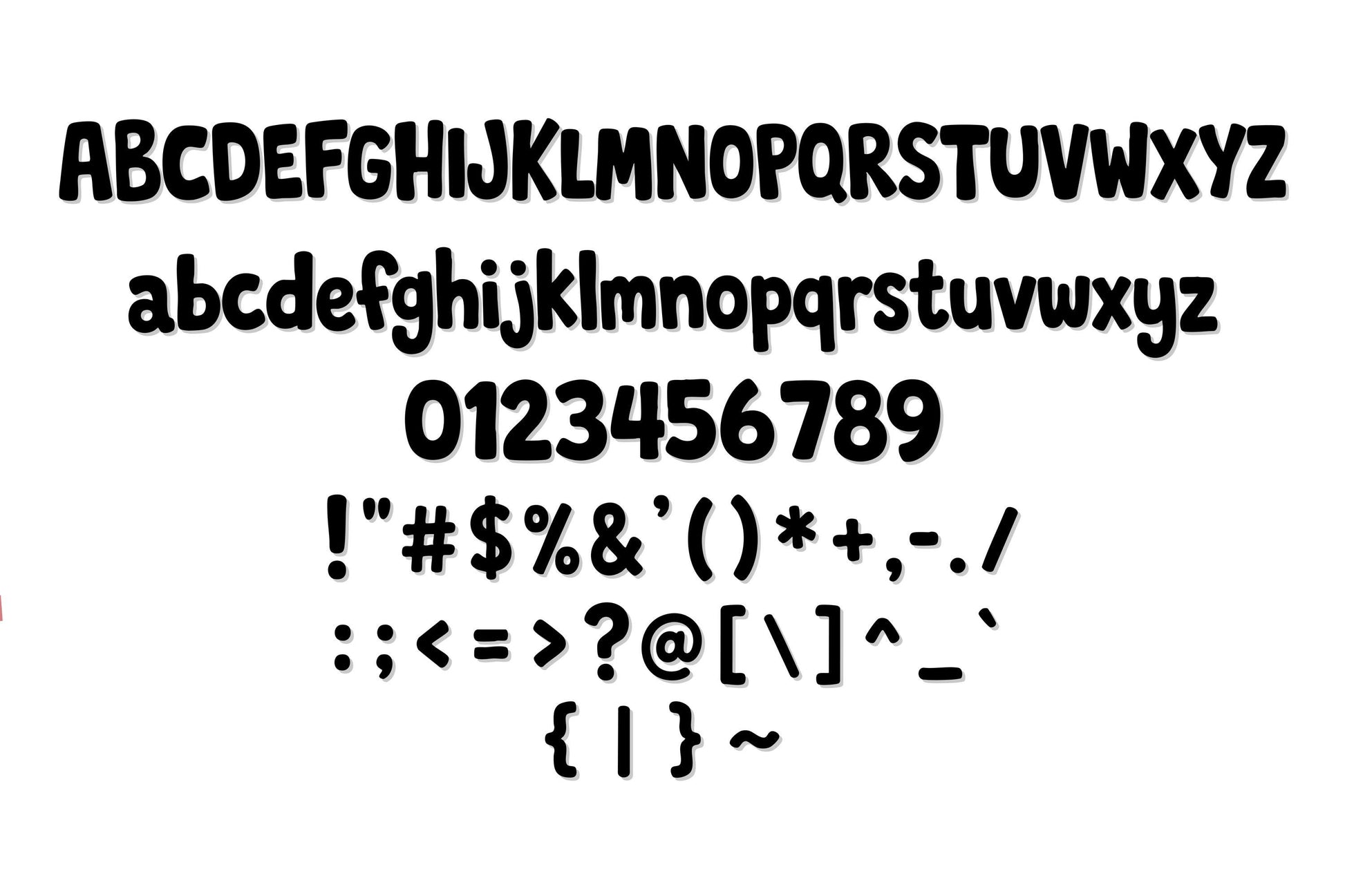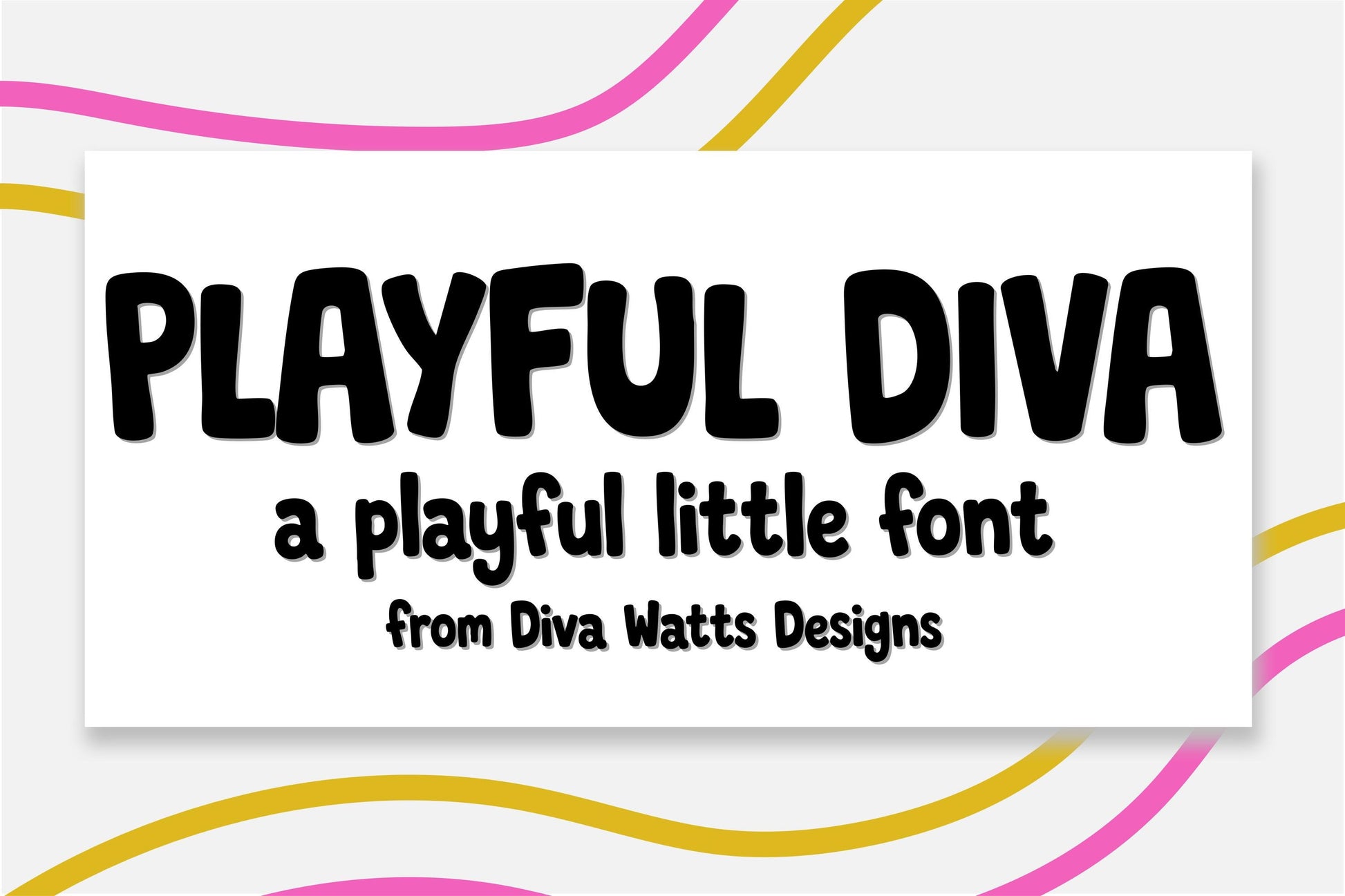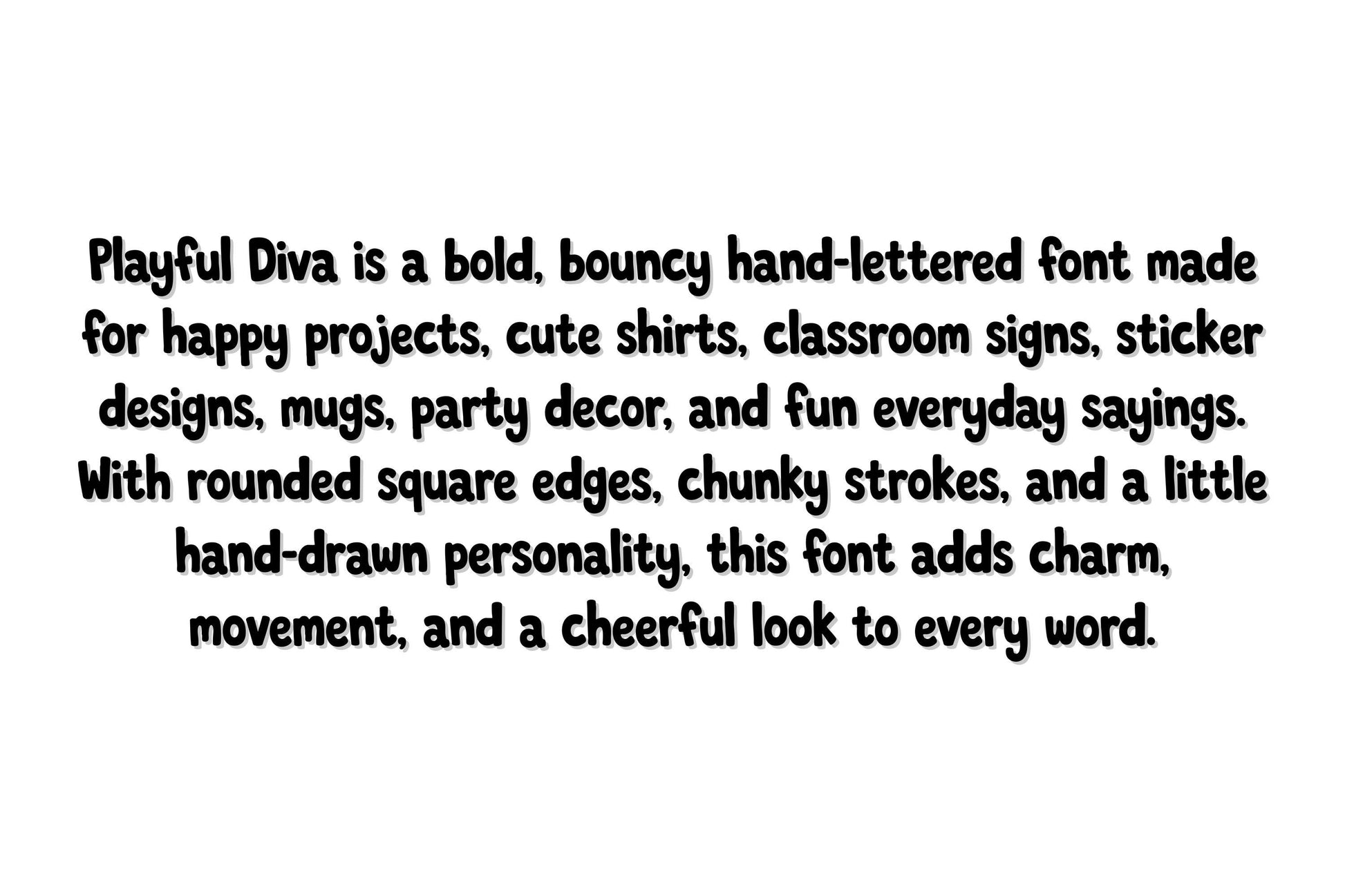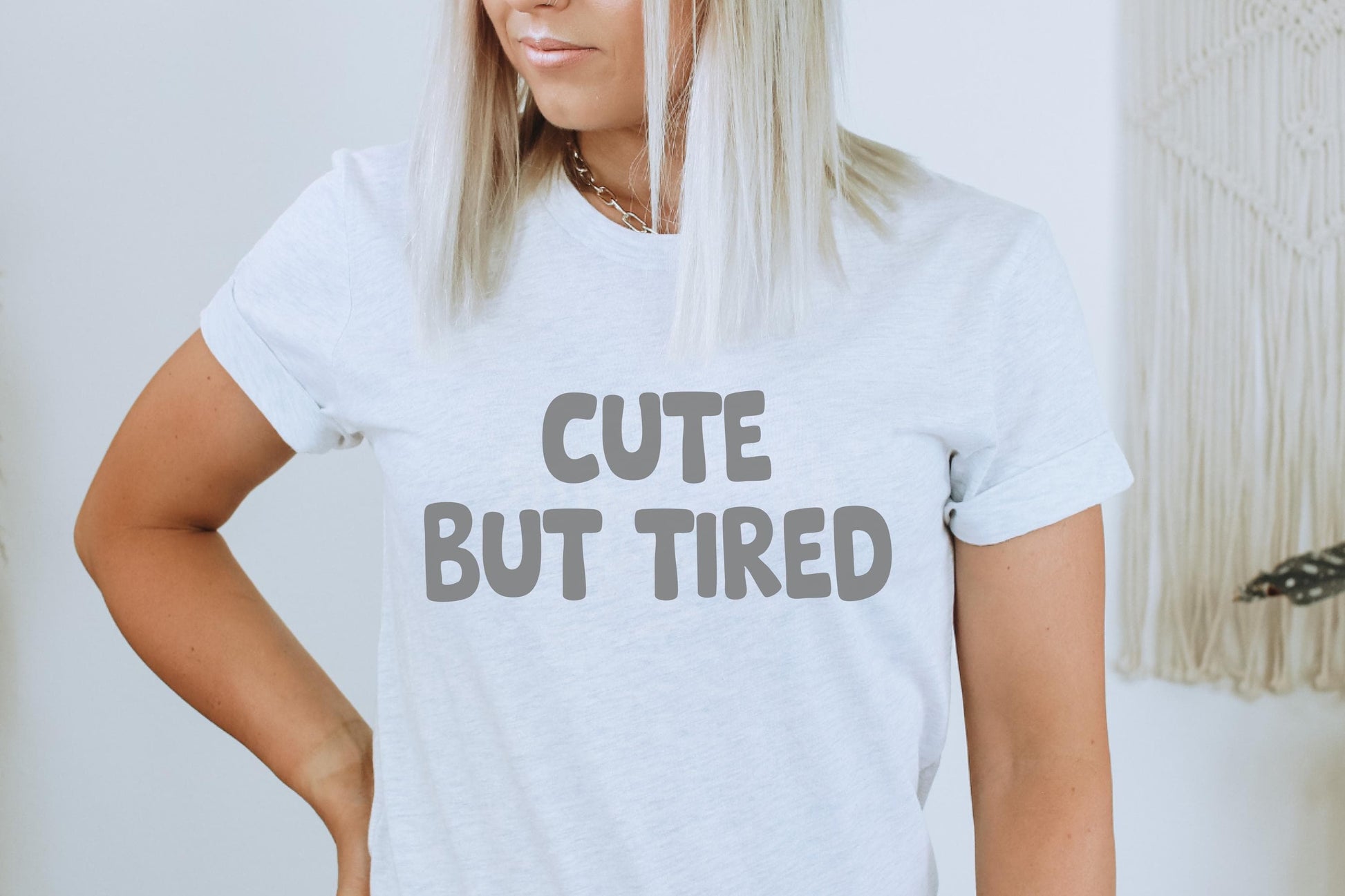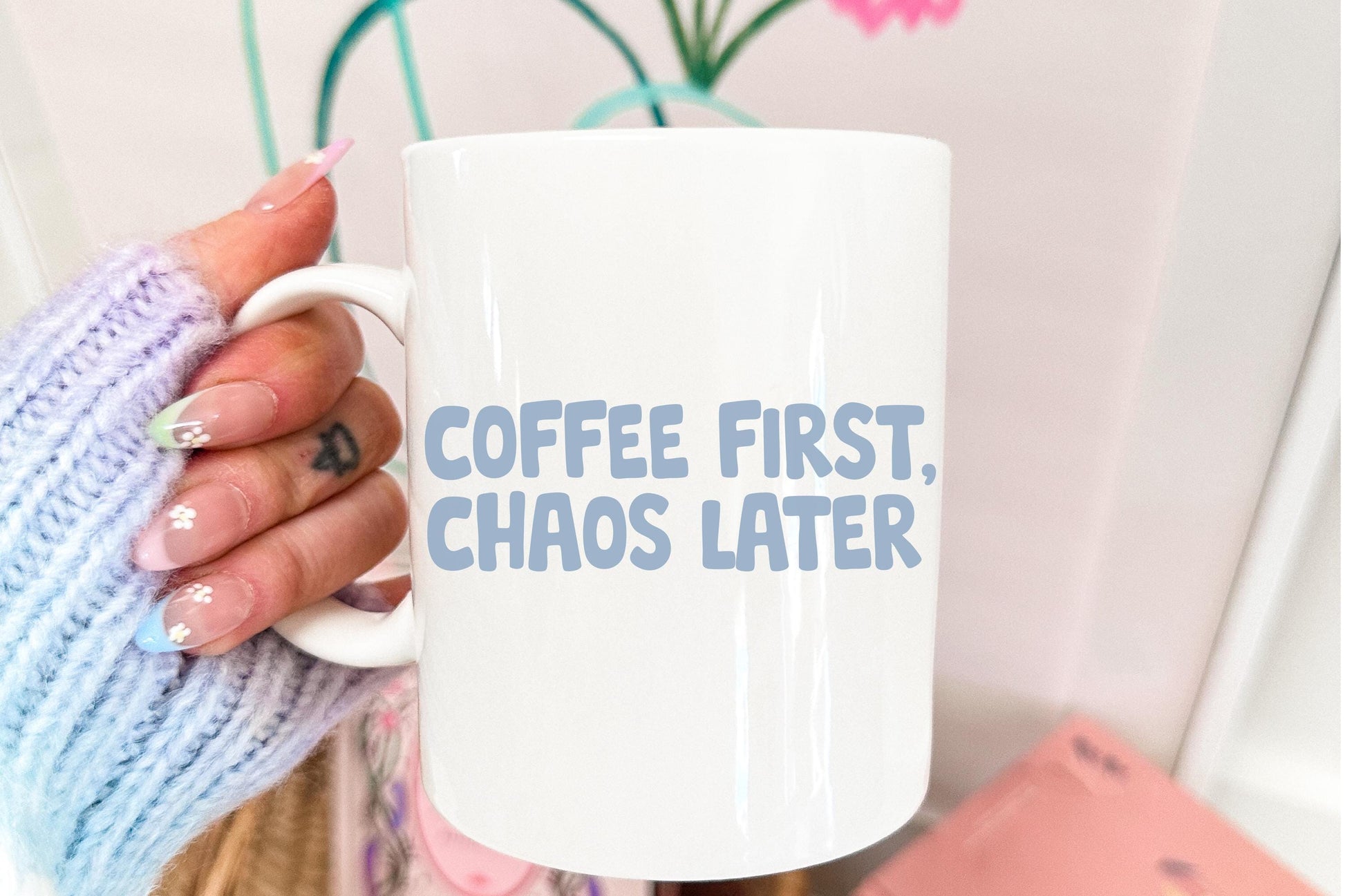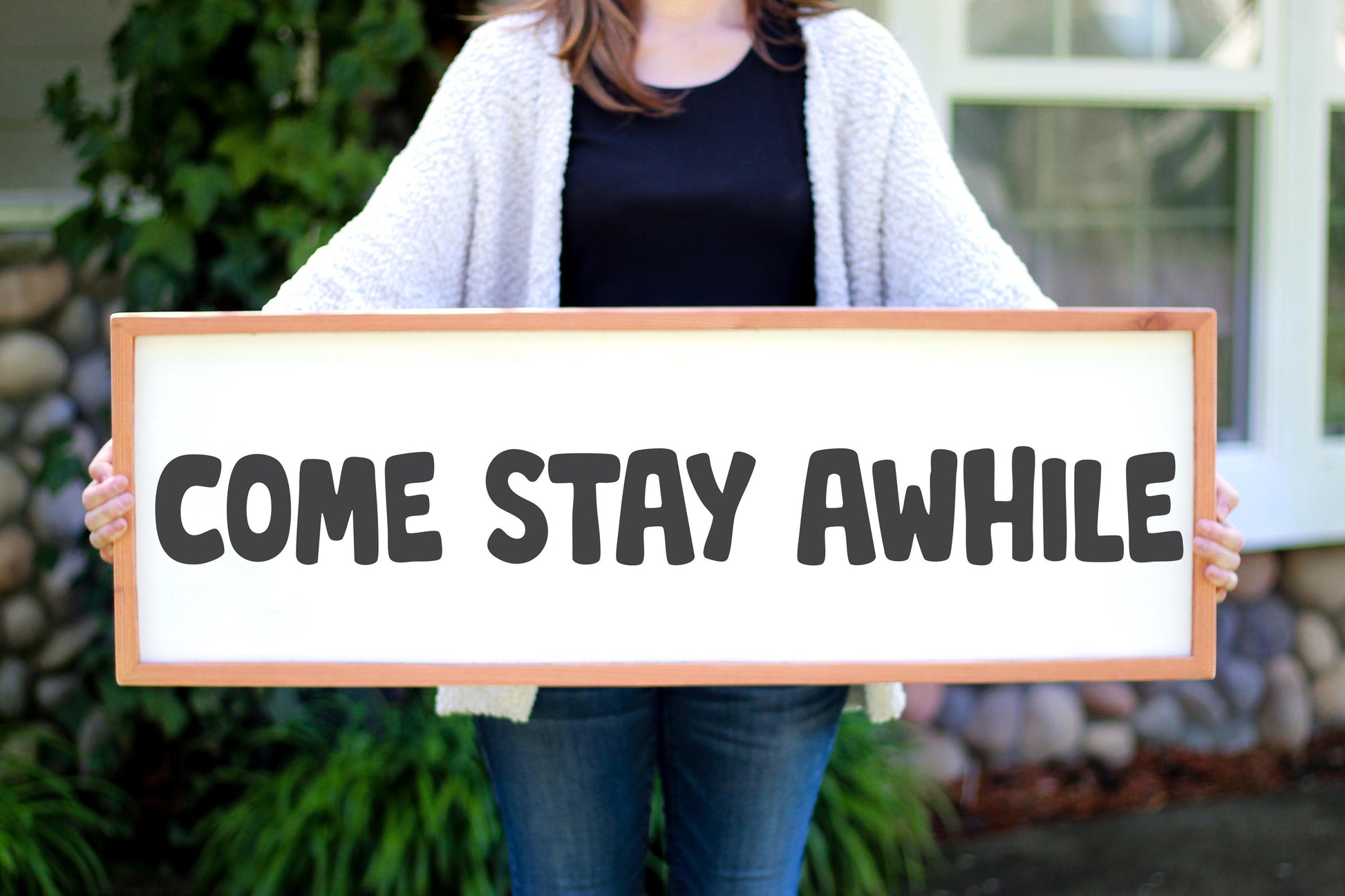
Playful Diva is a fun, hand-drawn display font designed to add personality and charm to your creative projects. With its bold, whimsical letterforms and playful character, this font is perfect for invitations, classroom materials, party decor, crafting projects, sublimation designs, stickers, shirts, signs, and more.
This font includes uppercase letters, lowercase letters, numbers, and punctuation shown in the preview images.
Perfect For:
⢠Crafting projects
⢠Party invitations
⢠Children's designs
⢠Teacher resources
⢠T-shirt and apparel designs
⢠Stickers and decals
⢠Signs and home decor
⢠Scrapbooking and paper crafts
⢠Social media graphics
Why You'll Love It:
⢠Easy-to-read playful style
⢠Includes uppercase, lowercase, numbers, and punctuation